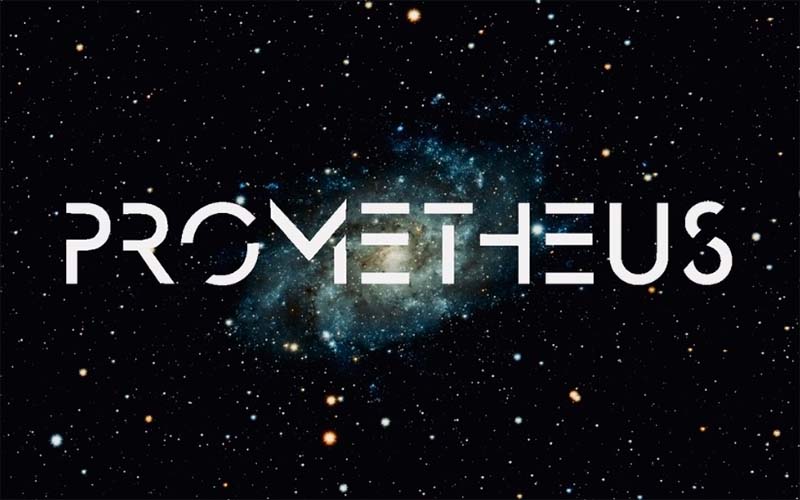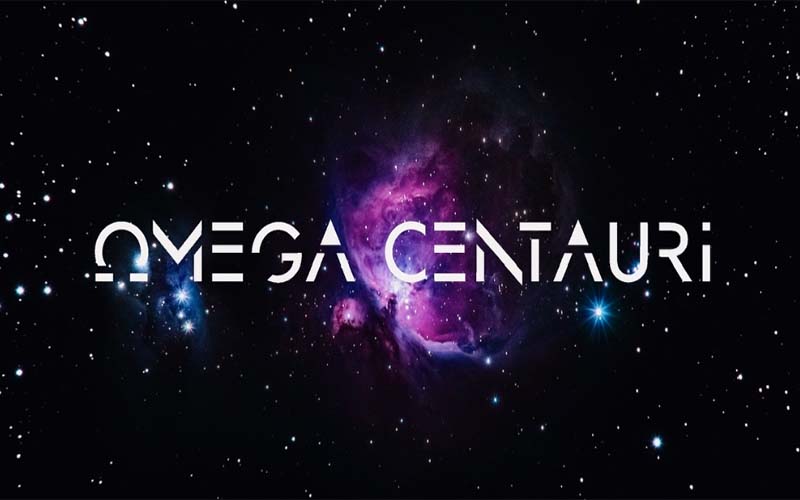
Omega Centauri Font is a gorgeous sci-fi futuristic display typeface that comes with a brand-new set of letters. Edric Studio Font Foundry took charge of designing and releasing it for the first time.
This font family comes in a single style that possesses Truetype features. Omega is your choice for technical, sci-fi, and all kinds of future projects. We are providing it free for download on anchor fonts.
Every character maintains a unique and awesome appearance that emphasizes the use of designers. That way, when designers apply this sci-fi font, they get a cool design.
In each letter, you will find a missing stroke and its structure seems to be incomplete. But this is the main idea that the designer applied to his creation. See this picture for more information.
Omega Centauri Font
| Font Name: | Omega Centauri Font |
| Style: | Display, Futuristic Typeface |
| Font Designer: | Edric Studio |
With its extensive language support and super cool features, this font is largely suitable for designing purposes. Many designers in the field are using it to make amazing and unique projects.
You can openly use this typeface for various projects such as Android apps, games, music, game graphics, brand logos, unique emblems, movies, TV, books, brochure designs, book covers, posters, magazines & more